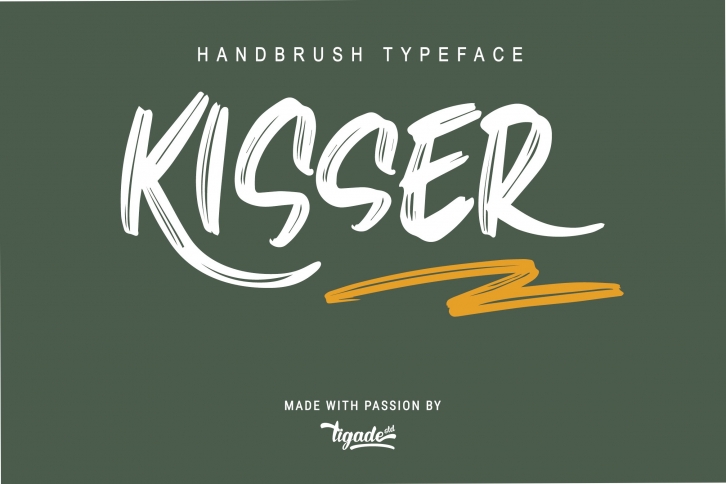
Kisser Webs is a beautiful font that was designed by Tigade Std. It's a great choice for designers and creatives who need such a font. It was released on October 14, 2020 and the file size is 5.76 MB. Kisser Webs may give a more youthful, expressive and casual look to your project. It is a very beautiful, refined, elegant, and high-quality font.